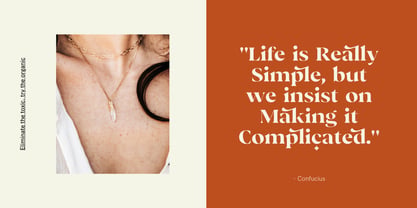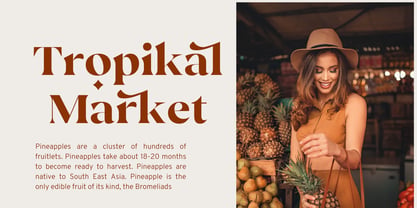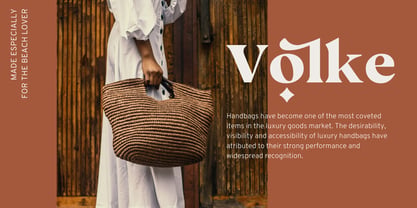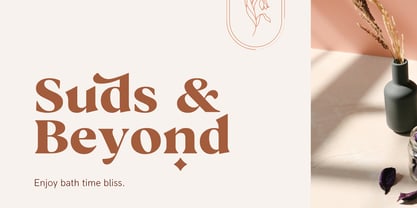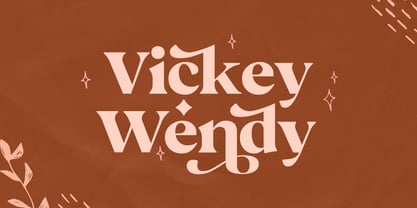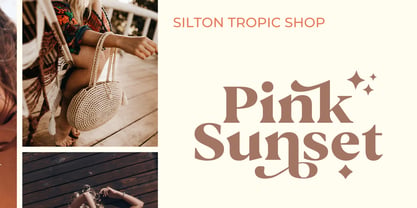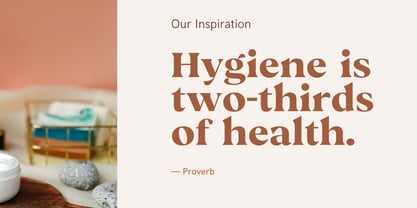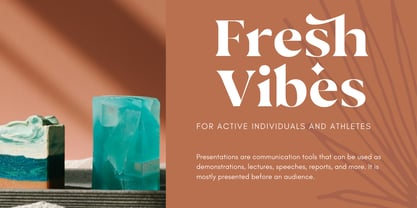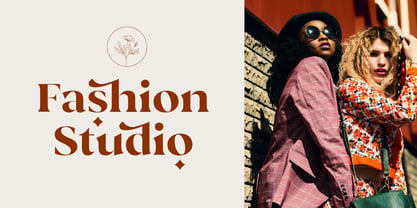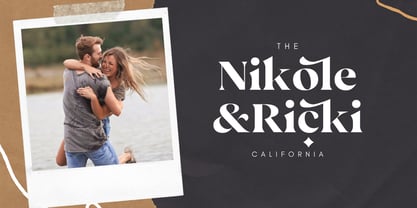
CCS Vickey
par Creative Corner Studio
La famille de polices CCS Vickey a été conçue par Kurt Harahap et publiée par Creative Corner Studio. CCS Vickey contient 3 styles et options de package familial. En savoir plus sur cette famille
Vickey is a bold, minimalist, and elegant modern vintage font that features beautiful ligatures, a wide array of special alternative glyphs, and ornamental elements, along with multilingual support. This versatile typeface excels in both large and small sizes, making it ideal for various applications. It is perfect for branding projects, logo design, clothing branding, product packaging, magazine headers, or as a stylish text overlay on any background image. Enhance your designs with Vickey's unique character and charm, suitable for both digital and print media.